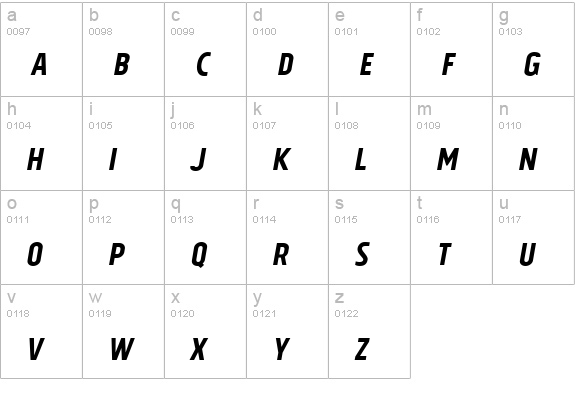
Tolyer Regular no.2 Oblique is the standard, neutral, italic variant in the Tolyer typeface family \xE2\x80\x94 well suited to general body text, paragraphs, and standard typographic work.
Tolyer Regular no.2 Oblique font is a stylish and modern typeface that exudes elegance and sophistication. Its sleek design and subtle slant make it perfect for adding a touch of flair to any project. With its clean lines and versatile look, this font is suitable for a wide range of design applications, from branding to editorial design. What sets Tolyer Regular no.2 Oblique font apart is that it is available for free download at FontsMarket.com. This means that you can access this high-quality font without any cost, making it a valuable addition to your font library. Whether you're a professional designer or a hobbyist looking to elevate your projects, Tolyer Regular no.2 Oblique font is a fantastic choice that won't break the bank. Download it today and see the difference it can make in your designs!